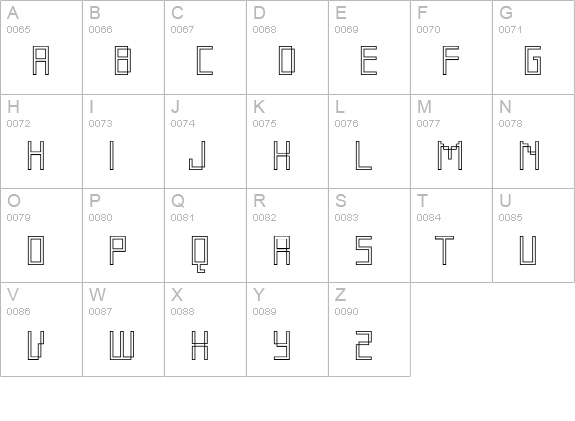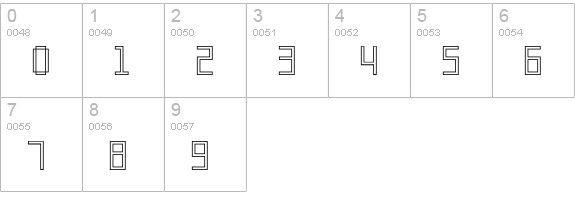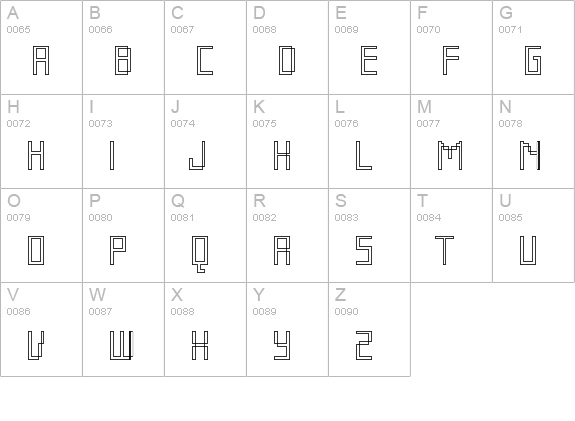
PFOnlineThreePro-SOutline Font Details
Introducing PFOnlineThreePro-SOutline font, a modern and sleek typeface designed for digital projects. This font features a unique outline style that adds a touch of sophistication to any design. With its clean lines and sharp edges, PFOnlineThreePro-SOutline is perfect for creating eye-catching headlines, logos, and more. What's even better is that this font is available for free download at FontsMarket.com. Yes, you read that right - you can get your hands on this professional and stylish font without spending a penny. Whether you're a designer looking to elevate your work or a hobbyist in need of a fresh new font, PFOnlineThreePro-SOutline is the perfect choice. Don't miss out on this fantastic opportunity to enhance your projects with a high-quality font that is both stylish and easy to use. Download PFOnlineThreePro-SOutline today and take your designs to the next level!